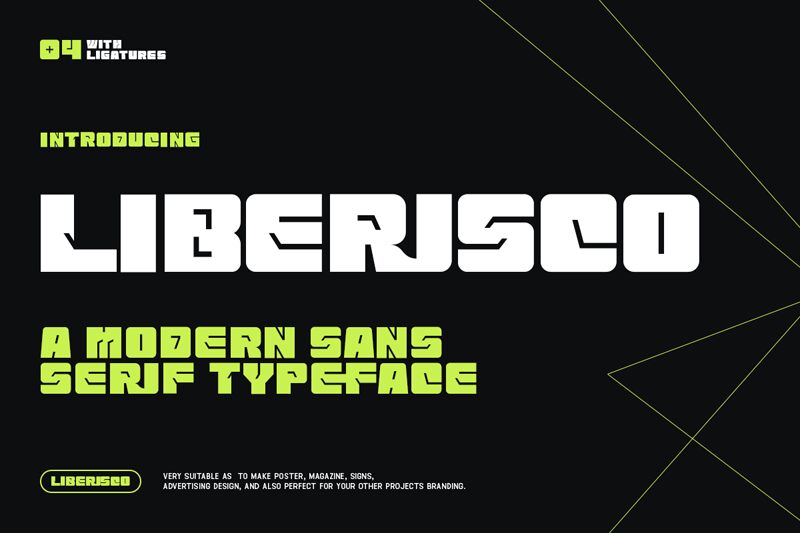
Liberisco font by Kong Font is a free techno font inspired from futuristic and geometric typefaces. The alphabet characters look substantially impactful with sharp symmetrical corners and bold outlines. The letterforms adopt a contemporary era feel that transcends a versatile and dynamic visual quality. It is futuristic and poetic that conveys and epitomizes energy and enthusiasm in written communication.
With its dynamic symmetry and energetic letterforms, Liberisco is a perfect choice for graphic design projects involving poster types, packaging, branding, logotypes, and headlines. It can also work well with invitation cards, product and company brochures, exhibition titles, and magazine cover pages, where a modern and futuristic style is crucial to convey the necessary intent.